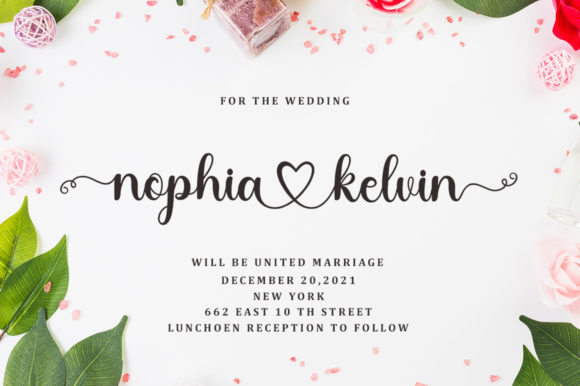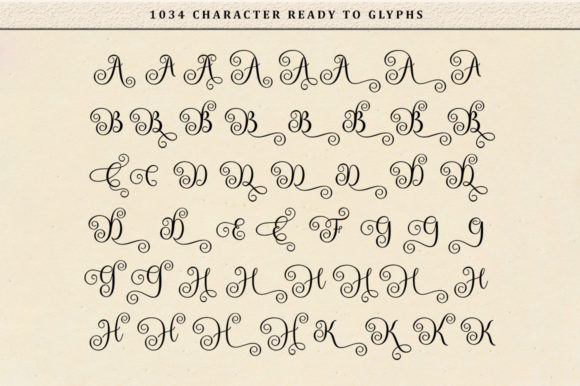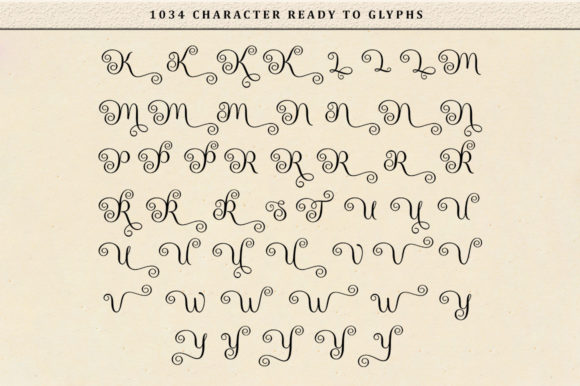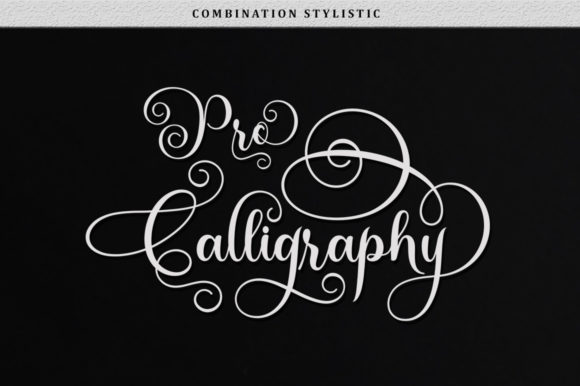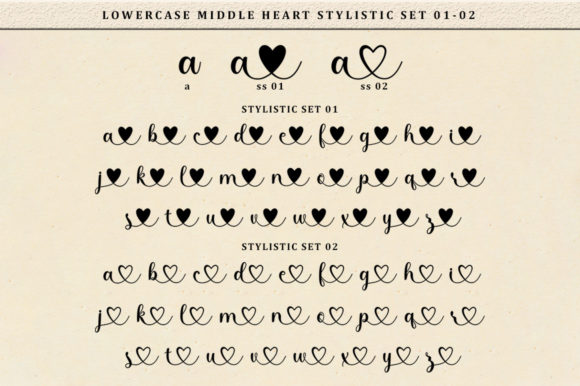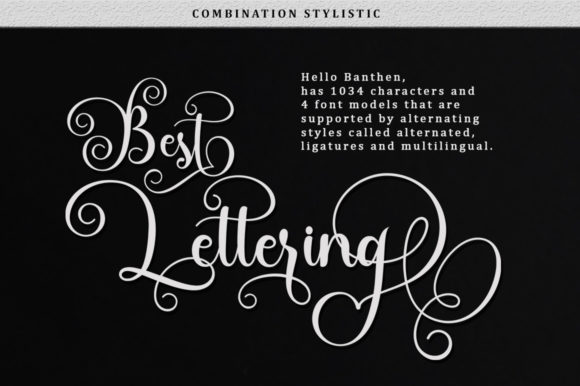
Introduction to Hello Banthen Font
Hello Banthen is a delicate and fashionable script font.
It is perfect for any branding project such as logos, t-shirt printing, creative products, and more This font is PUA encoded which means you can access all of the glyphs and swashes with ease.
Key Features of Hello Banthen Font